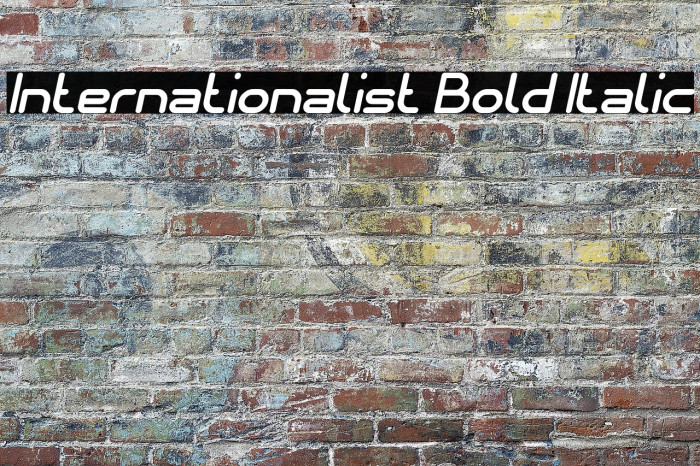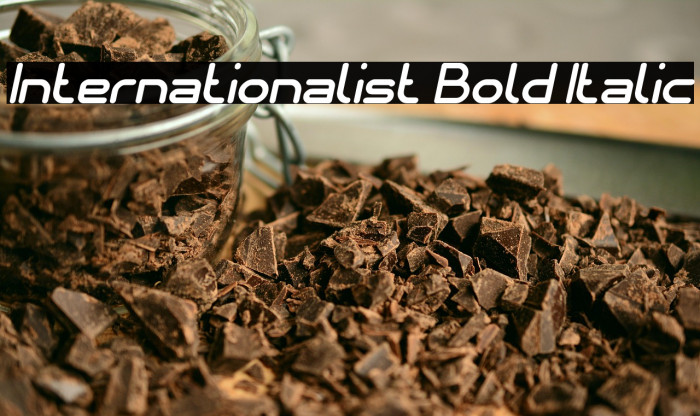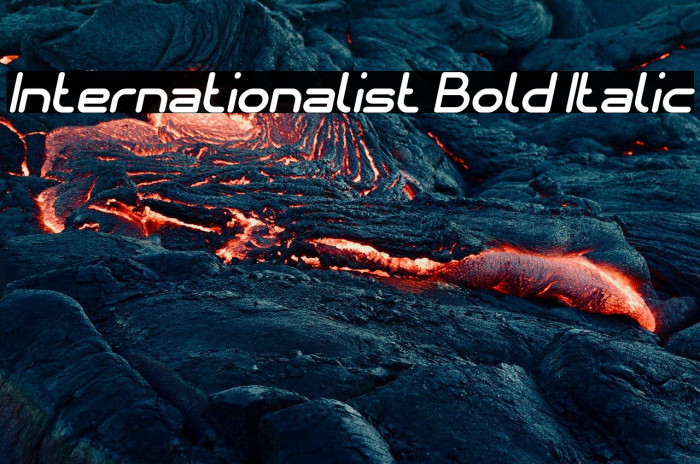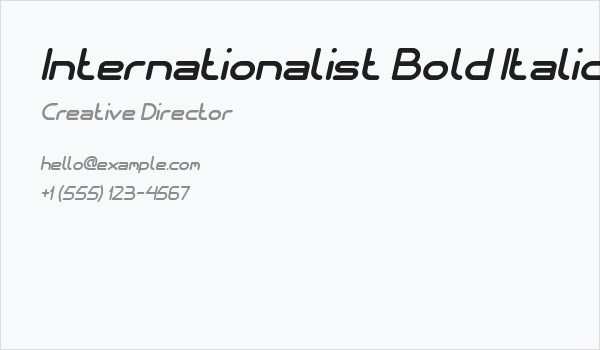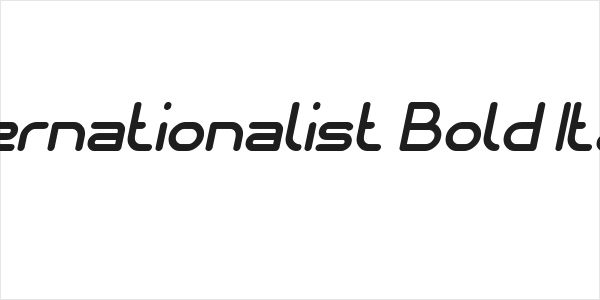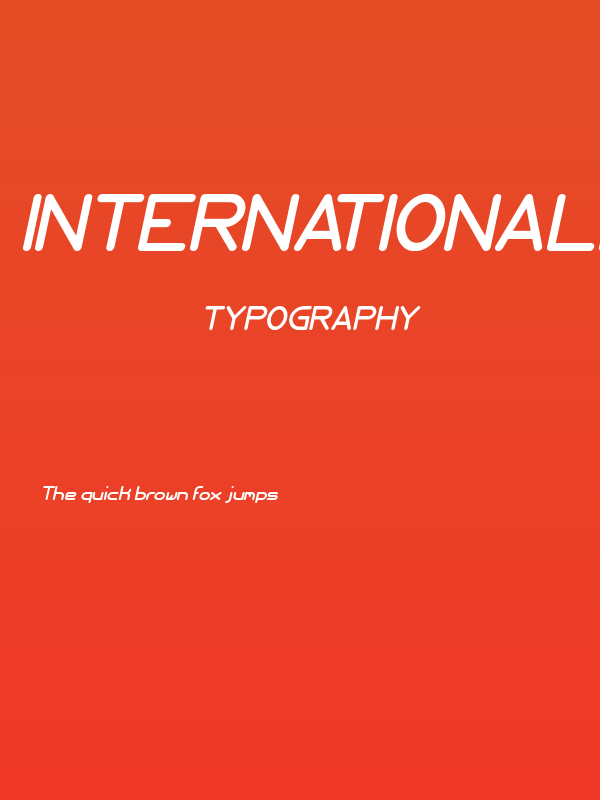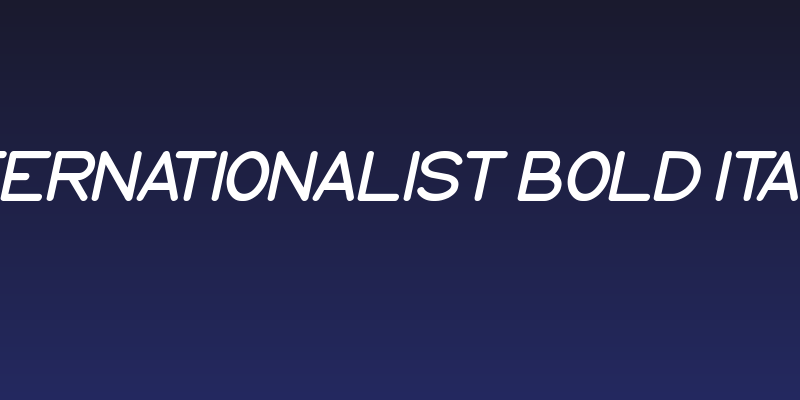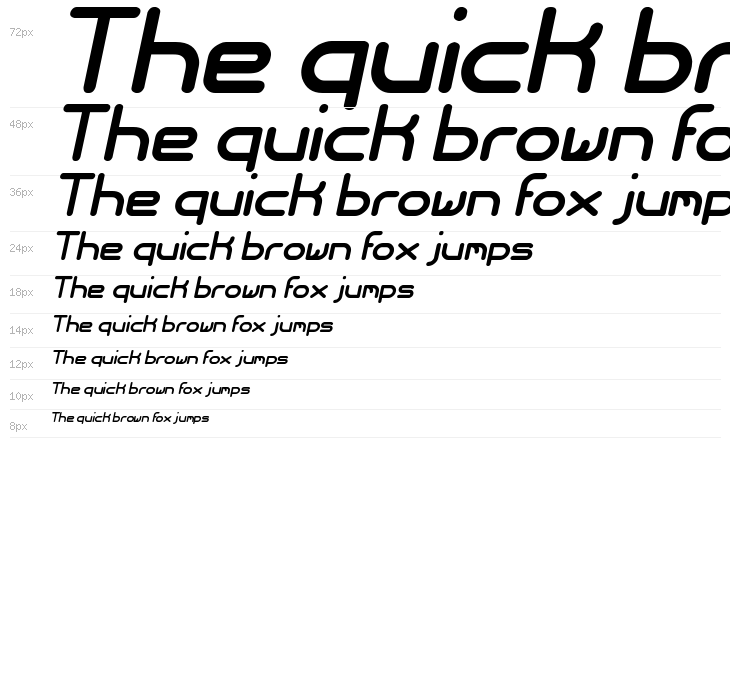
Internationalist Bold Italic Font
Internationalist Bold Italic Description
This font features a modern and sleek design with a bold and italicized style. The characters are slightly condensed, giving it a compact appearance. The strokes are consistent in thickness, providing a uniform look across all characters. The rounded edges and smooth curves contribute to its contemporary feel, making it suitable for a variety of design applications. The font maintains a clean and professional aesthetic, ideal for projects that require a touch of modernity and elegance. Its unique style ensures readability while adding a distinctive flair to any text.
| Use Case | Headlines, Logos, Digital Media |
| Proposed Projects | Ideal for branding, advertising, headlines, and digital media projects. |